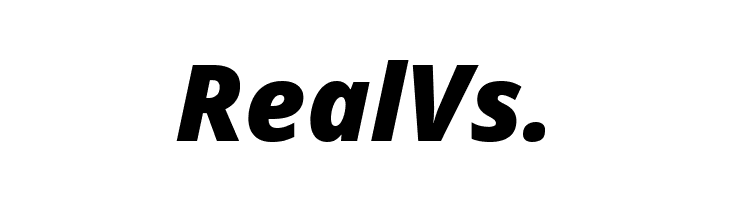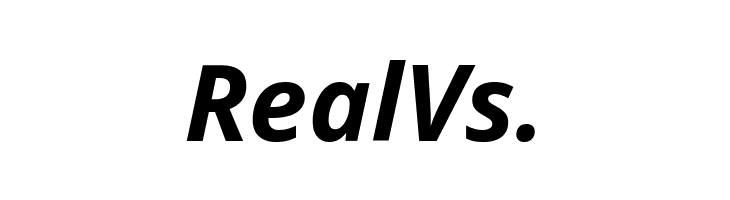
A modern, clean sans-serif typeface designed for clarity and readability.
A modern, light sans-serif font with a clean and minimalistic design.
A clean, modern font with a focus on readability and simplicity.
A modern sans-serif typeface with clean lines and excellent readability.
A modern, clean sans-serif font with excellent readability and balanced proportions.
A modern, thin sans-serif font with excellent readability and a minimalist design.
A bold, modern font with thick strokes and high legibility.
A bold, sans-serif font with clean lines and excellent readability.
A bold, modern font with strong strokes and high legibility.
A modern, extra-light sans-serif font with clean lines and balanced spacing.
A light, modern font for Bengali script, ideal for digital interfaces.
A modern sans-serif font with medium weight, ideal for user interfaces.
A clean, modern font optimized for user interfaces with clear, legible characters.
A modern sans-serif font known for its clarity and balanced weight.
A clean, thin, and modern font ideal for digital interfaces.
A bold, italic font with a modern and assertive style.
A bold, italicized sans-serif font with strong, modern appeal.
A bold, modern sans-serif font with excellent readability and versatility.
A bold, modern sans-serif font with excellent legibility and versatility.
A bold, italicized sans-serif font with a modern and clean design.
A bold, italicized sans-serif font with a modern and clean look.
A modern, geometric font supporting the ancient Brahmi script.
No valid font glyphs are visible; only placeholder boxes are shown.
Not a valid font sample.
No valid font characters are visible.
Invalid font sample; glyphs not visible.